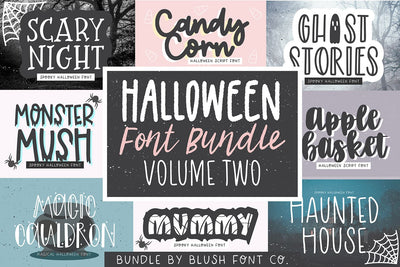
Halloween Font Bundle V2
These fonts were all hand-lettered with a brush and ink, or iPad Pro.
The fonts included are:
MAGIC CAULDRON
MUMMY
SCARY NIGHT
GHOST STORIES
CANDY CORN
APPLE BASKET
HAUNTED HOUSE
MONSTER MUSH